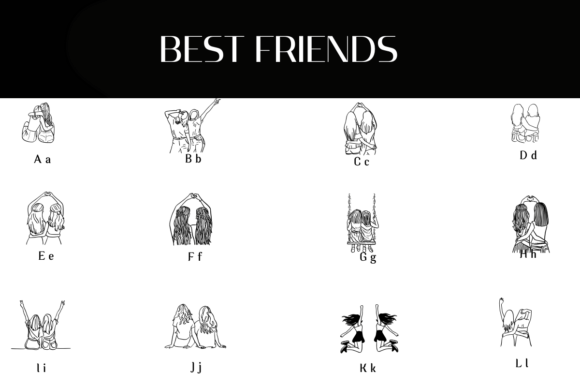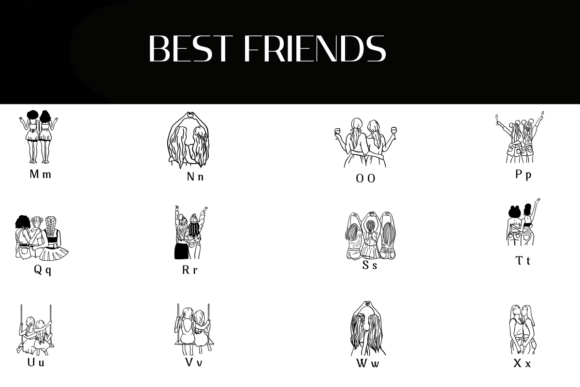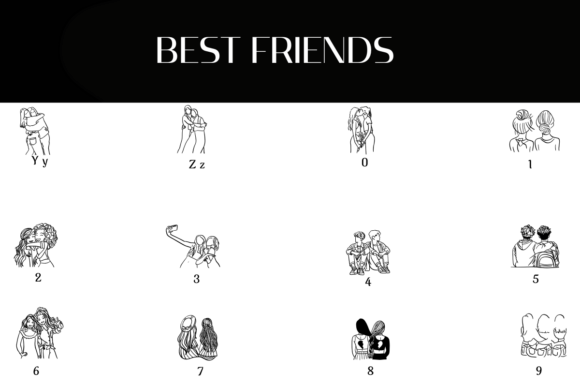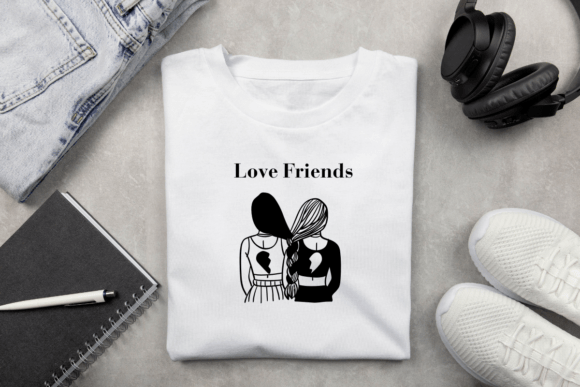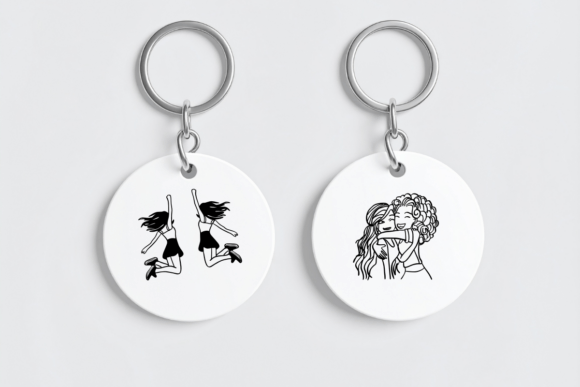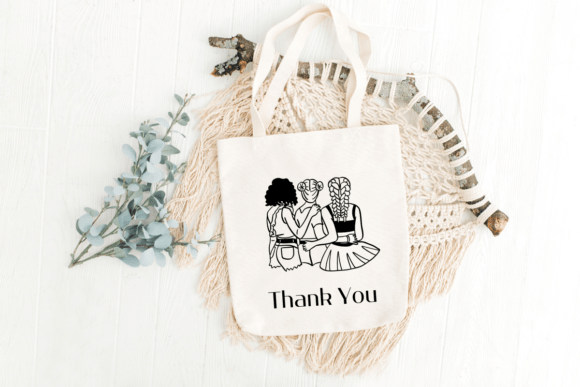
Celebrating Friendship with the Best Friends Font
As designers, we’ve all been there – stuck in a creative rut, searching for the perfect font to bring our project to life. I recall working on a social media campaign for a youth organization, wanting to convey a sense of warmth and connection. That’s when I stumbled upon the Best Friends font, a game-changing collection of line-art illustrations that instantly elevated my design. In this article, we’ll dive into the world of the Best Friends font, exploring its features, uses, and what makes it a must-have for creatives.
I’ve had the pleasure of working with the Best Friends font, and here’s what I think:
- ✨ Unique and versatile illustrations: The font features dozens of hand-drawn icons depicting friends in various poses, from hugging and walking to laughing and making heart signs.
- ✅ Easy to use: Each character is mapped to a key on your keyboard, making it incredibly easy to use in any design software.
- ✅ Pairs well with other fonts: The illustrations pair beautifully with simple sans-serif fonts or “bubbly” display types, allowing you to create cohesive, heartwarming layouts.
While the Best Friends font is a powerful tool, there are a few quirks to consider:
- ⚠️ Limited character set: As a dingbats typeface, the font is limited to the illustrations and may not be suitable for body text or extensive writing.
- 🤔 Requires some exploration: With so many illustrations to choose from, it may take some time to get familiar with the font and find the perfect icons for your project.
The Story Behind the Best Friends Font
The Best Friends font was created with the intention of celebrating the beauty of connection and friendship. The designer, inspired by the joy of human relationships, crafted a unique collection of line-art illustrations that would bring people together. With its clean and minimalist style, the Best Friends font has become a go-to for creatives looking to add a touch of warmth and personality to their designs.
| What type of designs is the Best Friends font best suited for? | The Best Friends font is perfect for social media graphics, personalized gift items, greeting cards, and community-focused projects. |
| Is the Best Friends font easy to use? | Yes, the font is incredibly easy to use, with each character mapped to a key on your keyboard. |